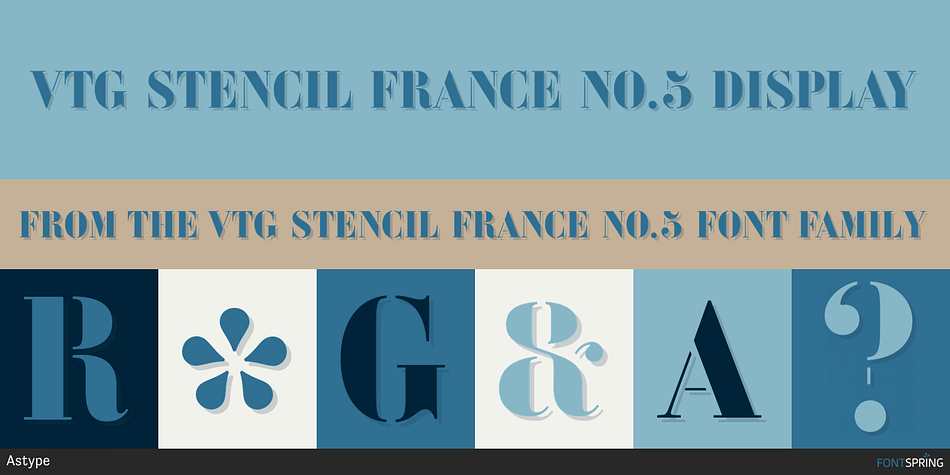
VTG STENCIL FRANCE NO.5 DISPLAY
Designed by Andreas Seidel, Vtg Stencil France No.5 is a stencil font family. This typeface has two styles and was published by Astype.
The Vtg Stencil fonts from astype are based on real world stencils from several countries. In the case of French stencils the challenge was special, because of the varieties of different widths and weights between the stencil sets – so I made France No. 1, No. 3 and No. 5.
The most unique and eye-catching elements of typical French stencils are the figures 1, 2, 3, 7 and a specially 5. The figure 5 changes in style on smaller stencil sizes, its bobble getting replaced by something like a “breve”. The letters J and Q can differ in style too. Lowercase letter sets are rare finds but were produced and still exist. In very old stencils sets and on custom stencil signs you will find even more varieties.
French stencil letters were used by artists like Georges Braque and Pablo Picasso who integrated lettering in paintings from their cubist period, and by the famous architect Le Corbusier. Over the time, these stencil letters became a globally recognized landmark of French design and French taste.
Designer Andreas Seidel